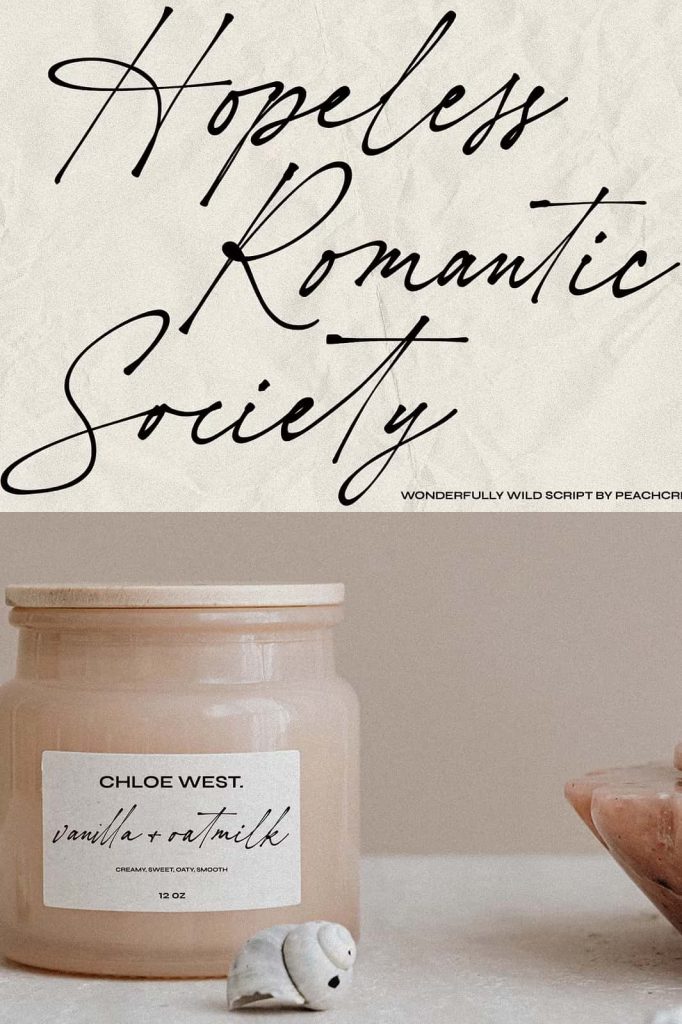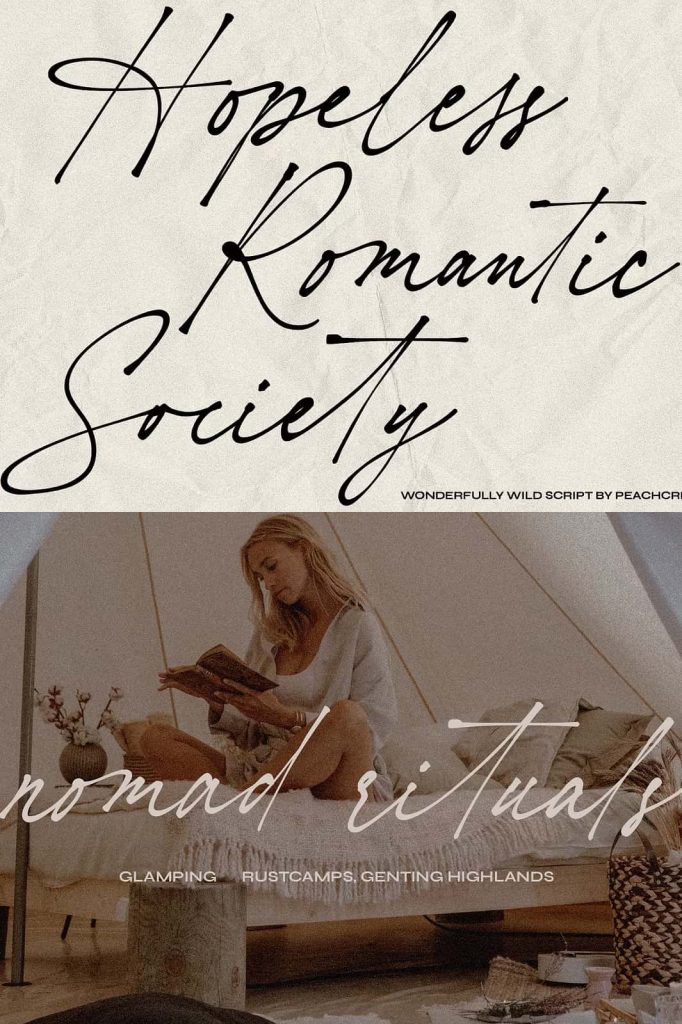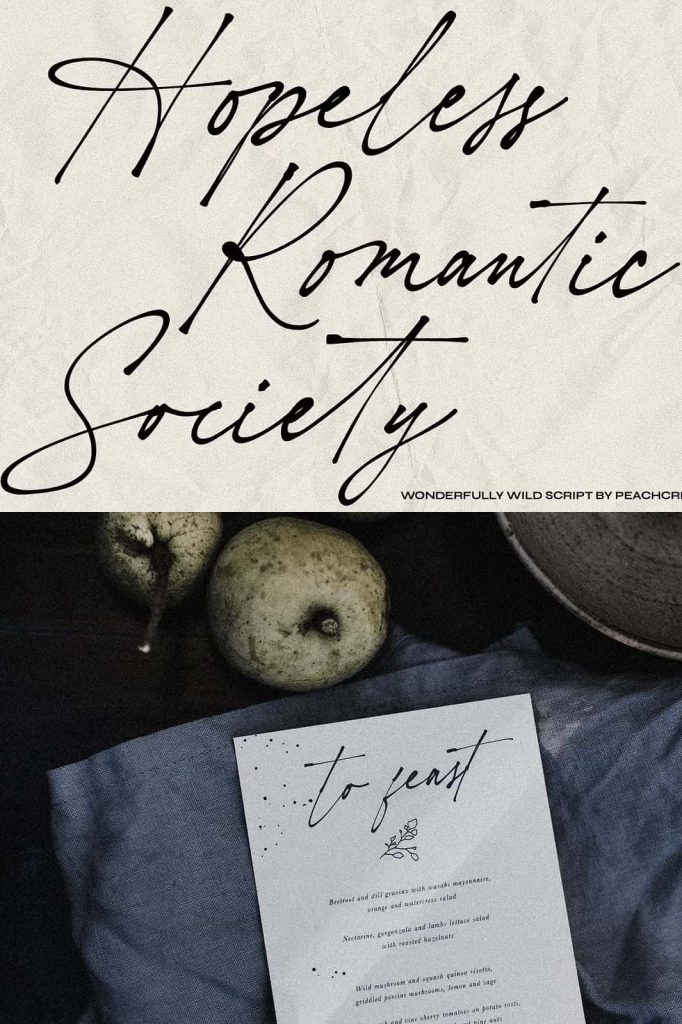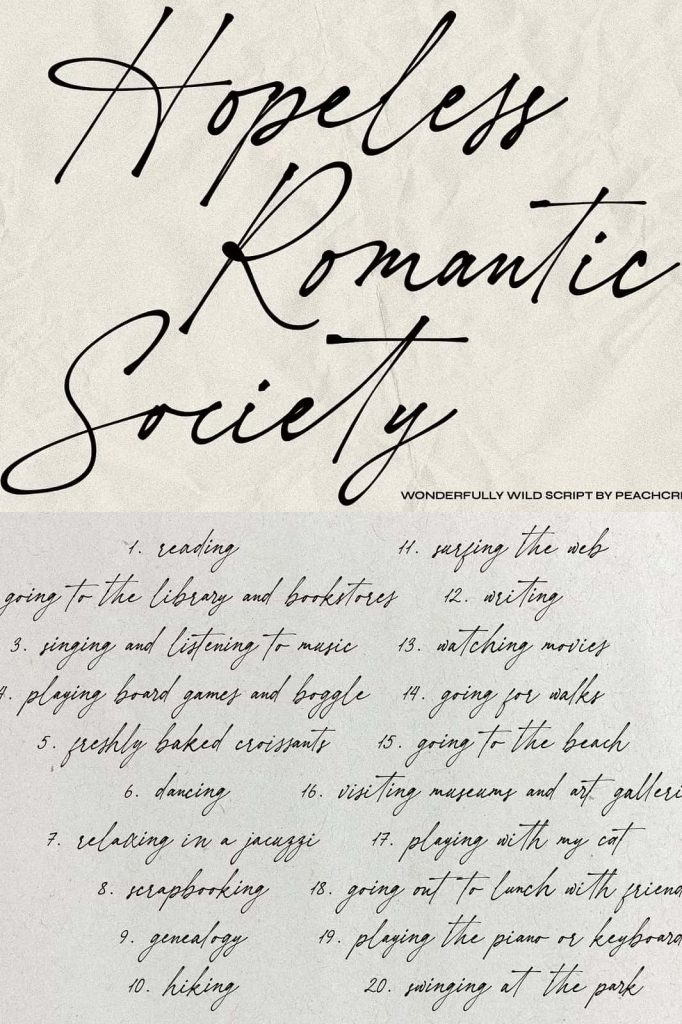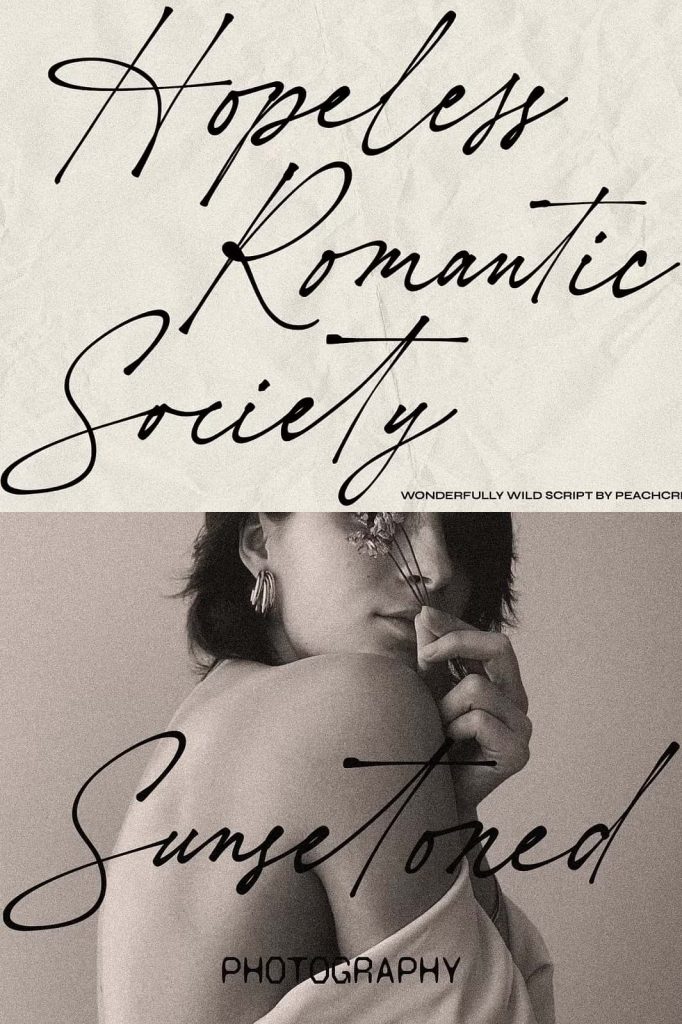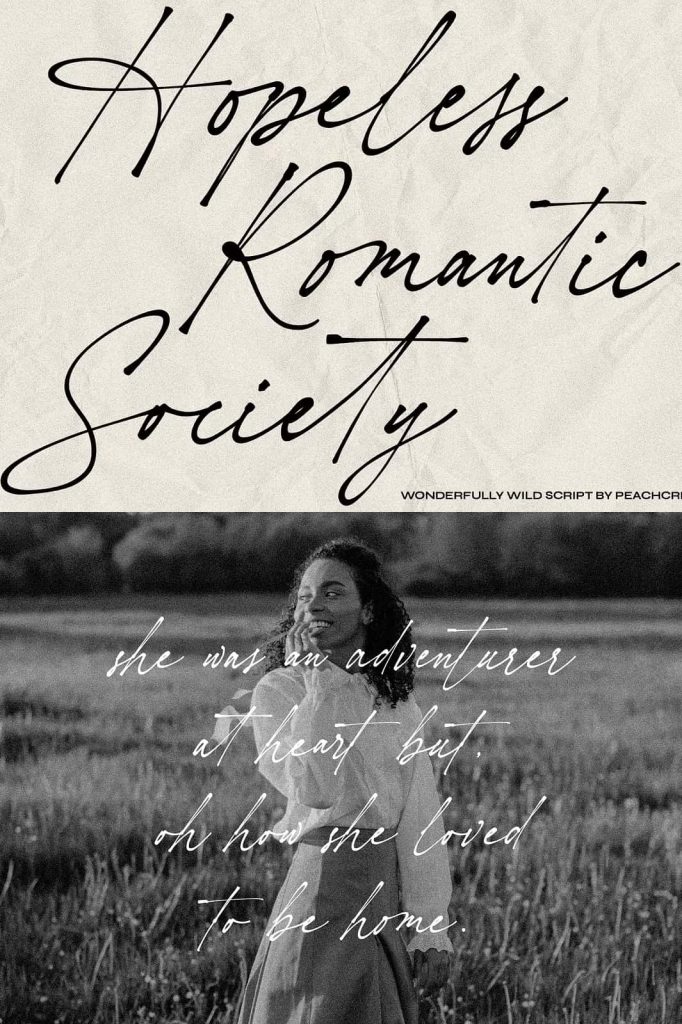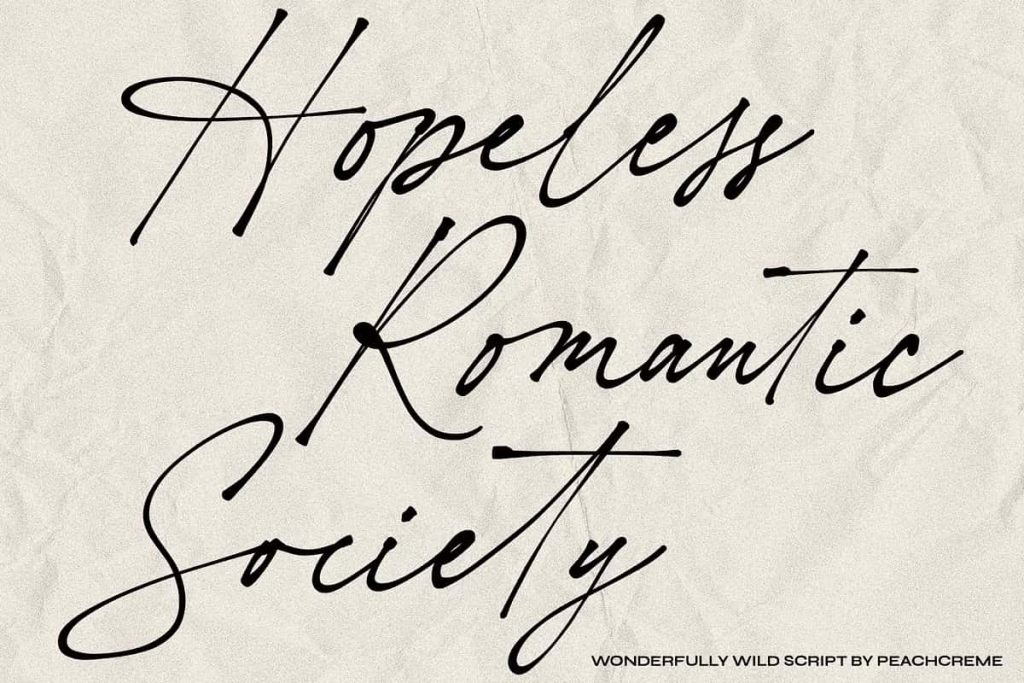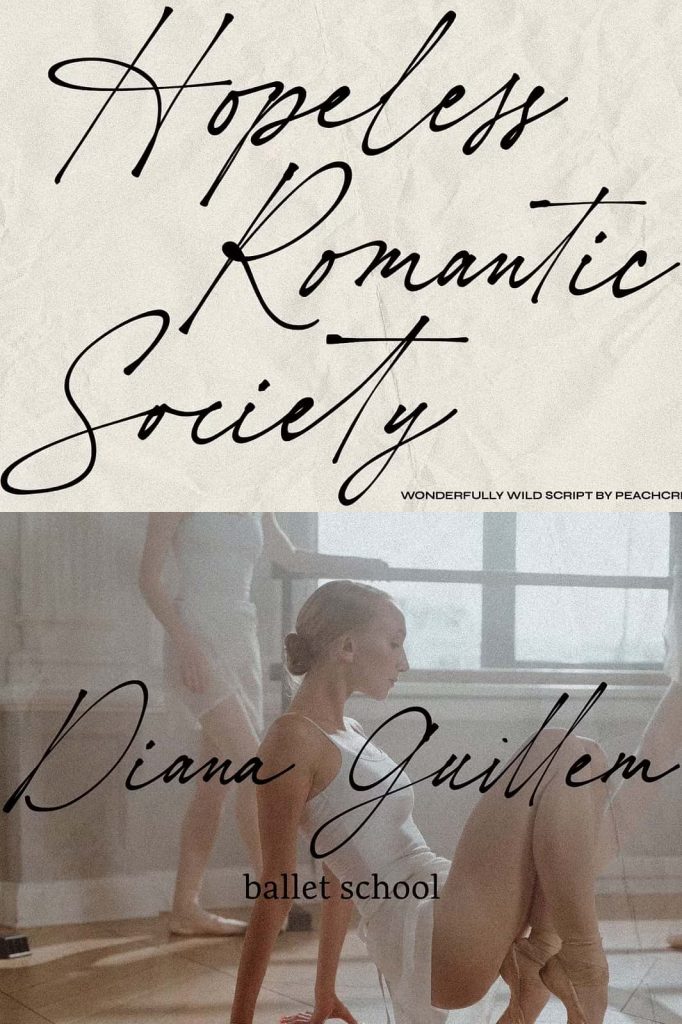
An imperfectly charming handwritten font, “Hopeless Romantic Society”, is here to liven up your design works. This carefree ligature-filled handwritten typeface was influenced by writings that were sloppily produced by hand.